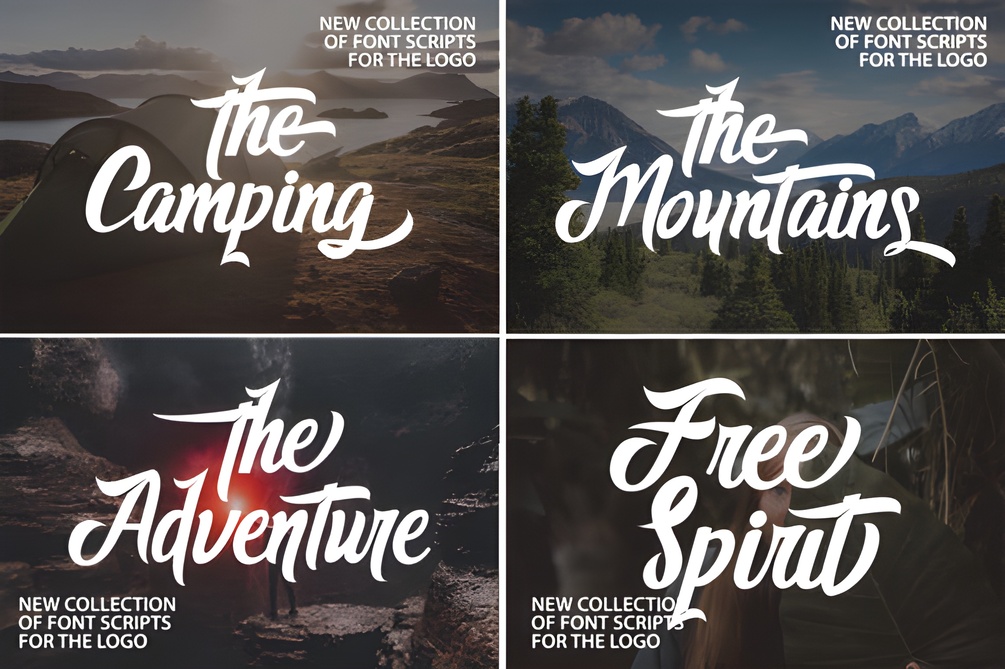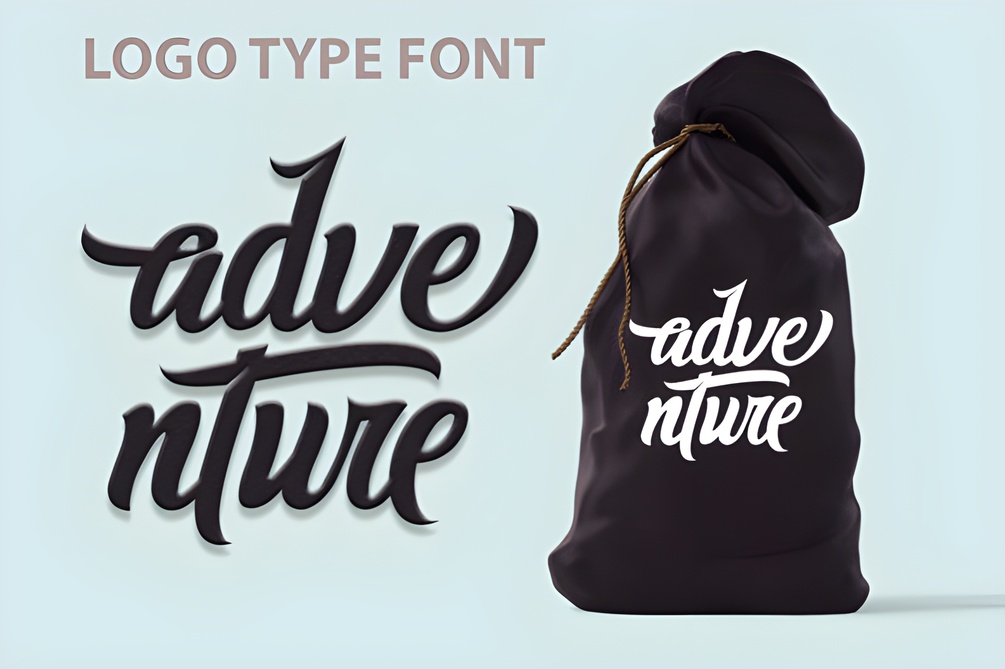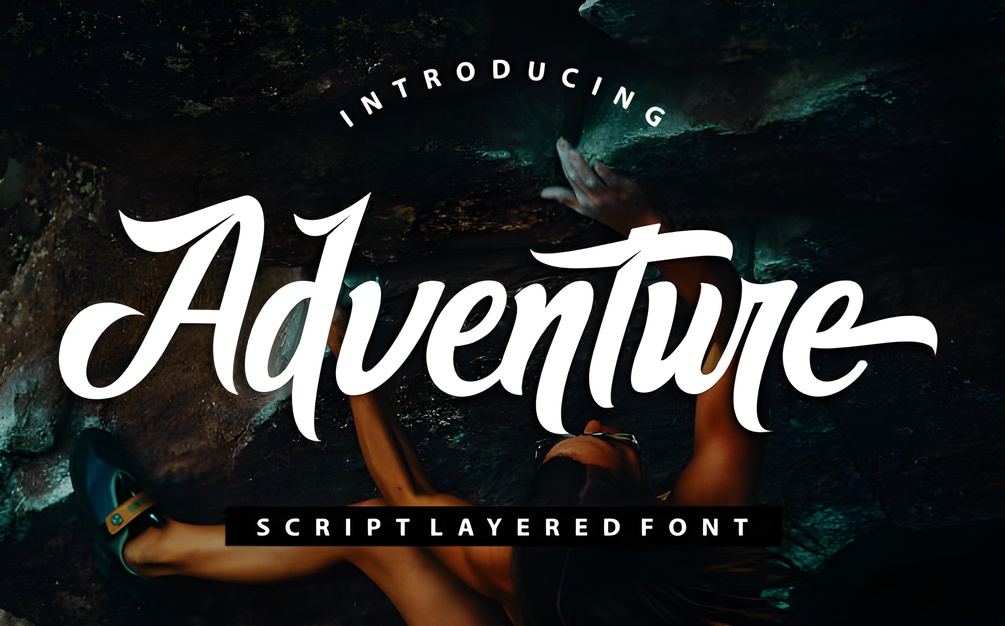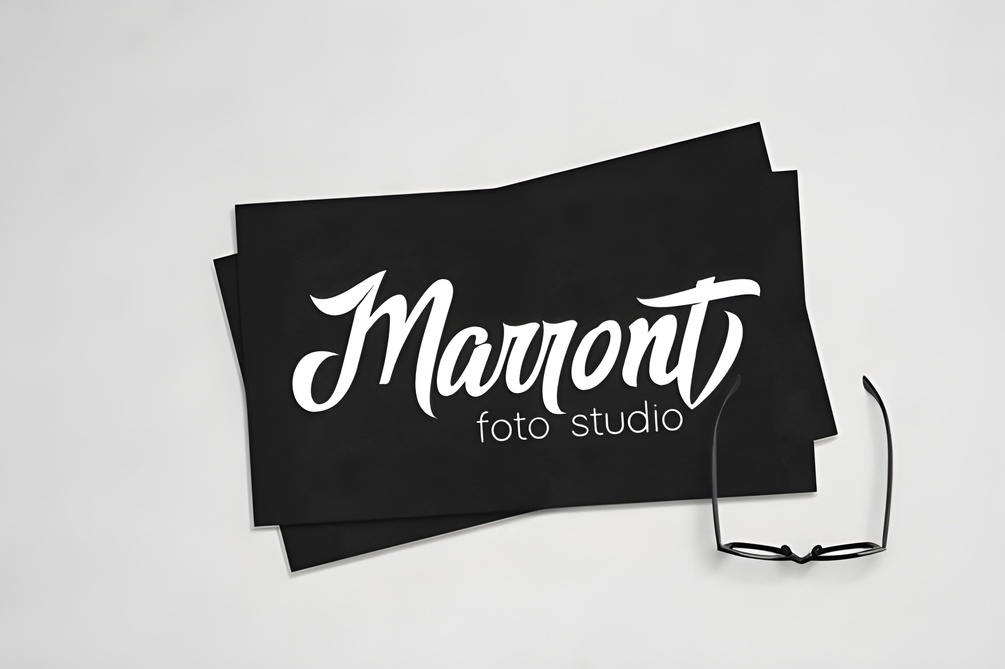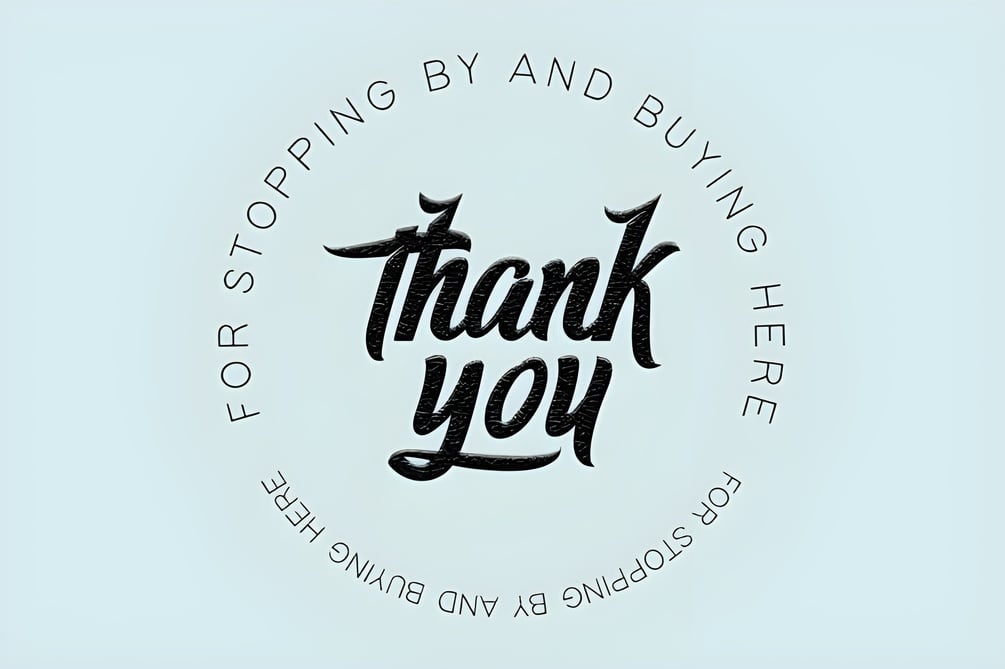
Adventure Font
Unleash your creativity with "The Adventure," a stunning layered font that exudes youthful energy and passion.
Perfect for logos, t-shirts, branding, and more, this versatile font adds a unique flair to any project.
Elevate your designs with "The Adventure" and make a bold statement that captures attention and imagination. Ideal for designers seeking a fresh, dynamic aesthetic, this font will transform your creations and set them apart.
Embrace the adventure and let your designs soar to new heights!
Transform your designs with "The Adventure," a vibrant layered font perfect for logos, t-shirts, and branding. Its youthful, passionate design adds a unique flair to any project, making your creations stand out and captivate attention.